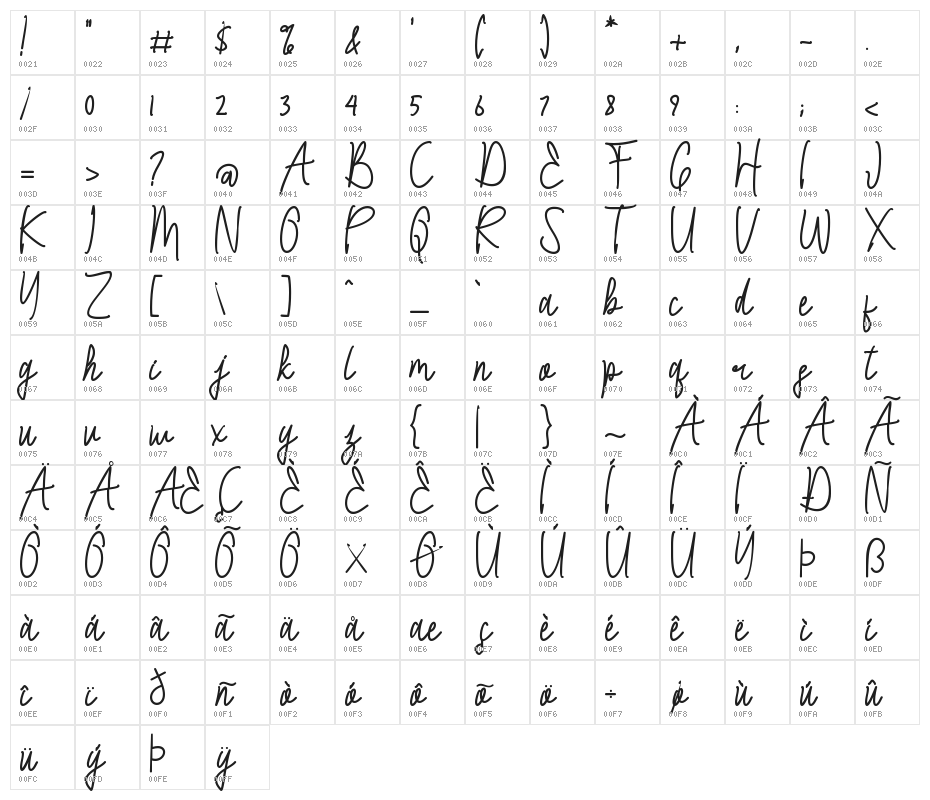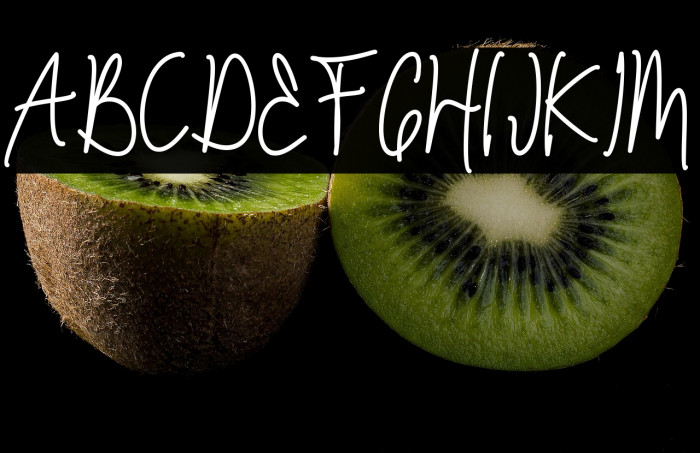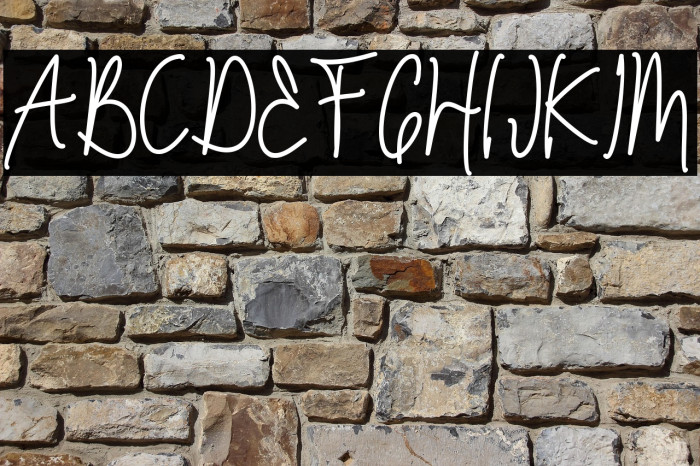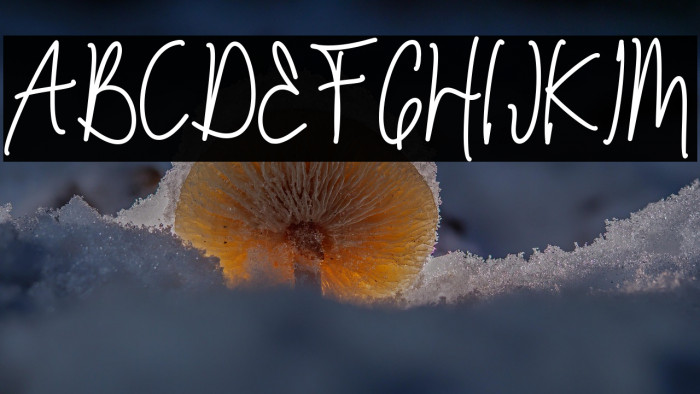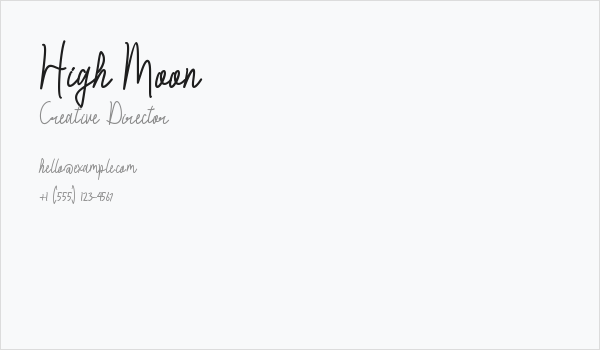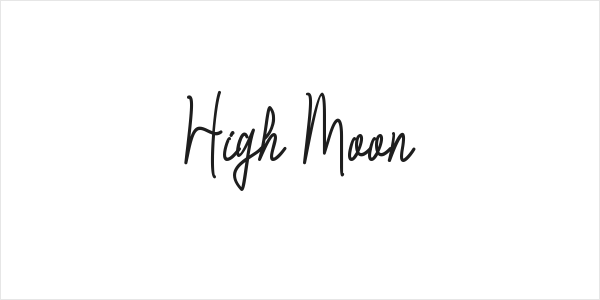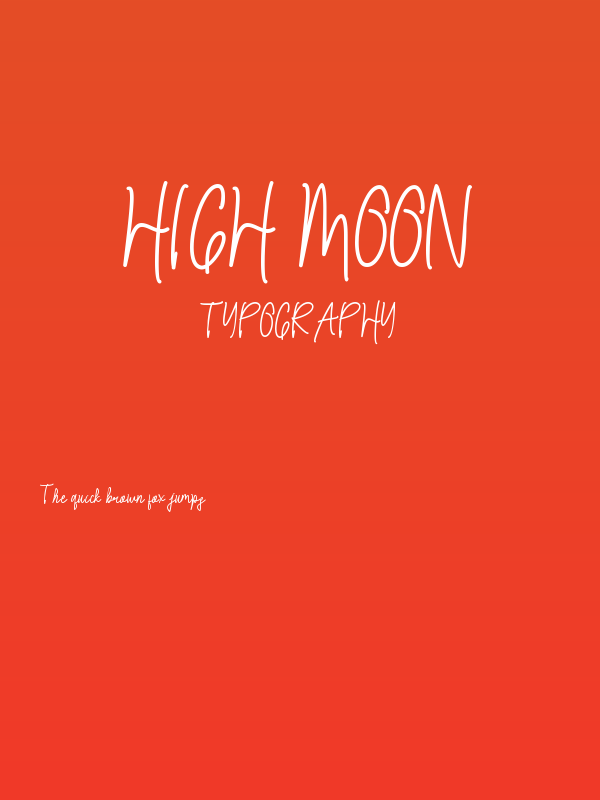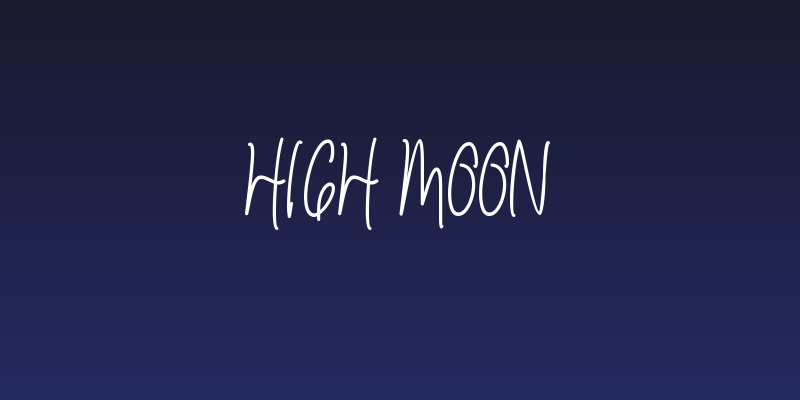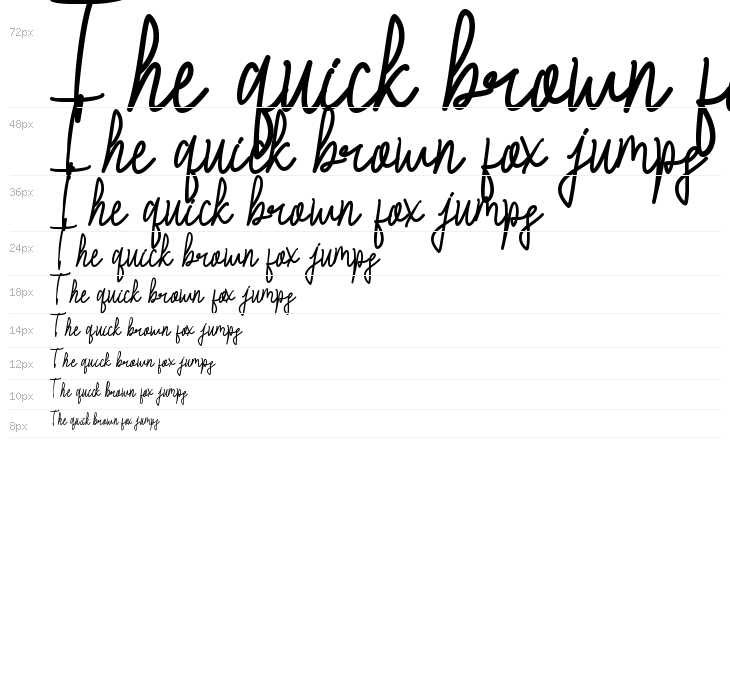
High Moon Font
High Moon Description
This font features a playful and energetic handwritten style, characterized by its fluid and dynamic strokes. The uppercase letters are tall and slightly narrow, with a whimsical flair that adds a sense of movement. The lowercase letters maintain a consistent flow, with some letters extending below the baseline, enhancing its casual and informal appearance. The numerals are bold and clear, matching the overall lively aesthetic. Special characters are creatively integrated, maintaining the font's cohesive style. This font is ideal for projects that require a personal touch or a sense of spontaneity.
| Overall Style | Casual |
| Use Case | Headlines, Logos, Informal text |
| Proposed Projects | Greeting cards, personal branding, social media graphics, and informal invitations. |